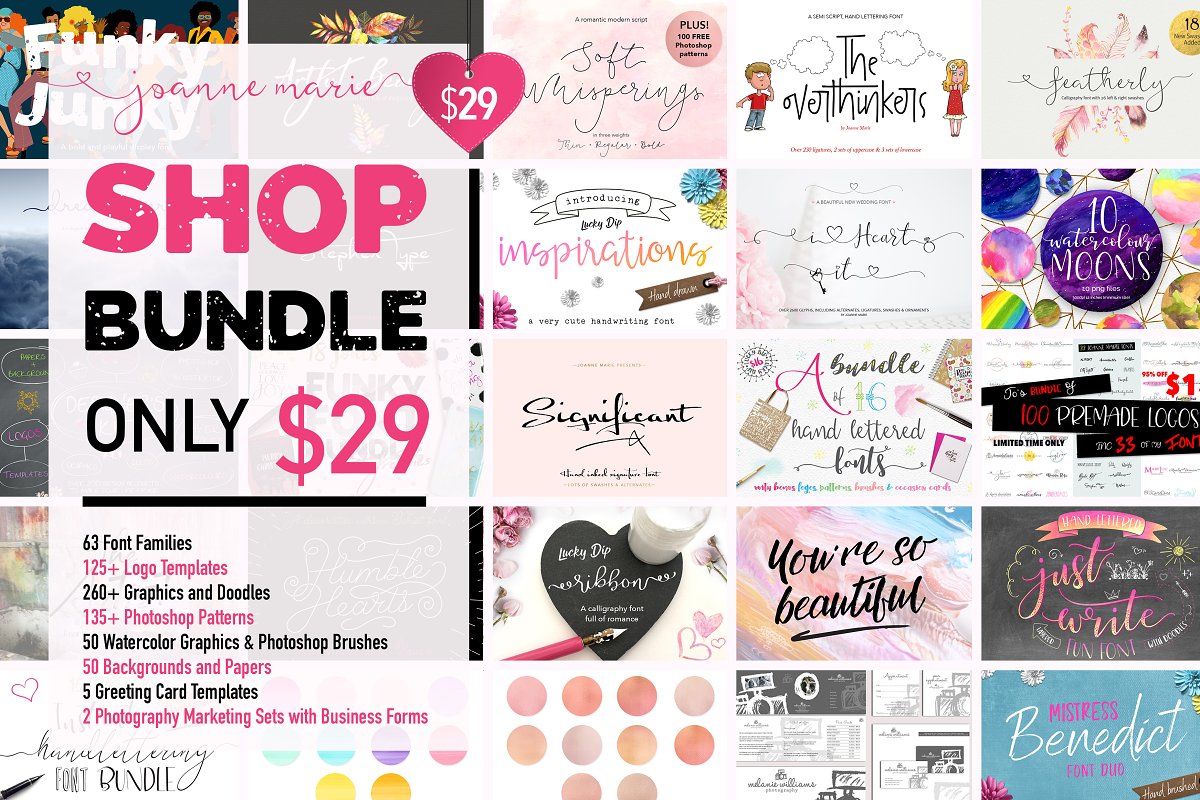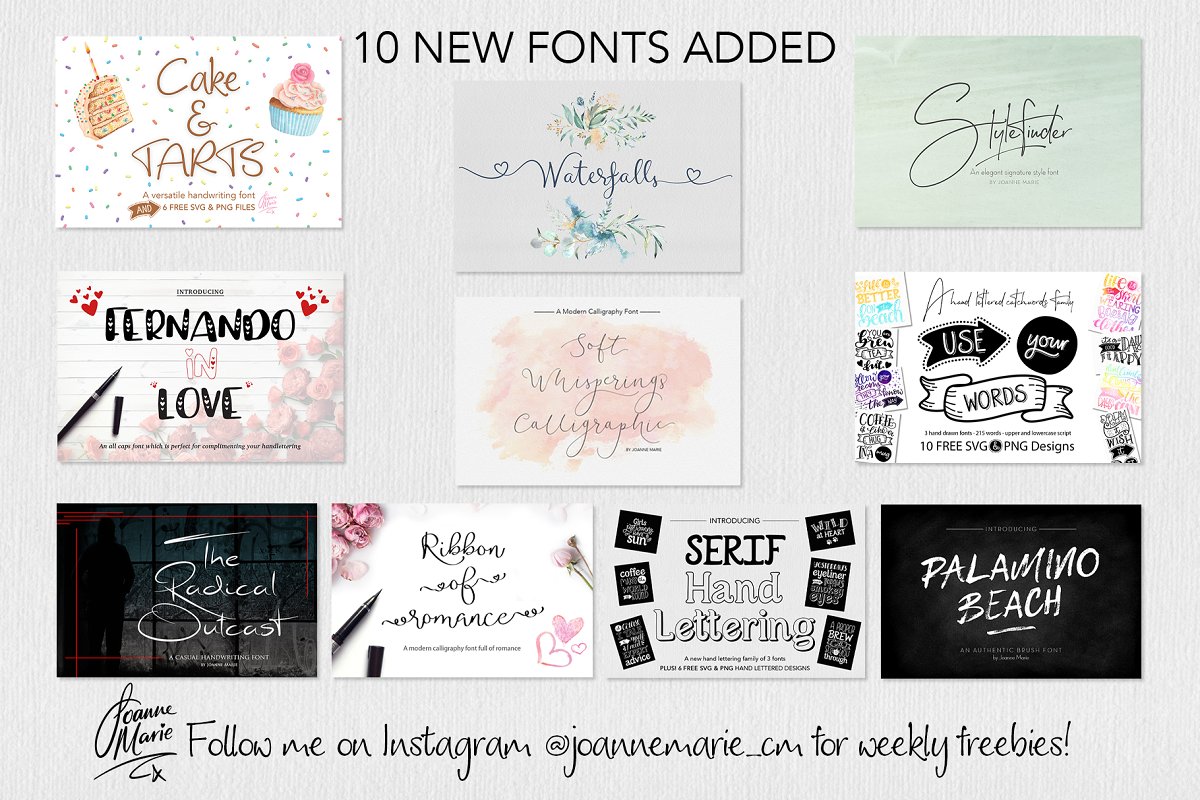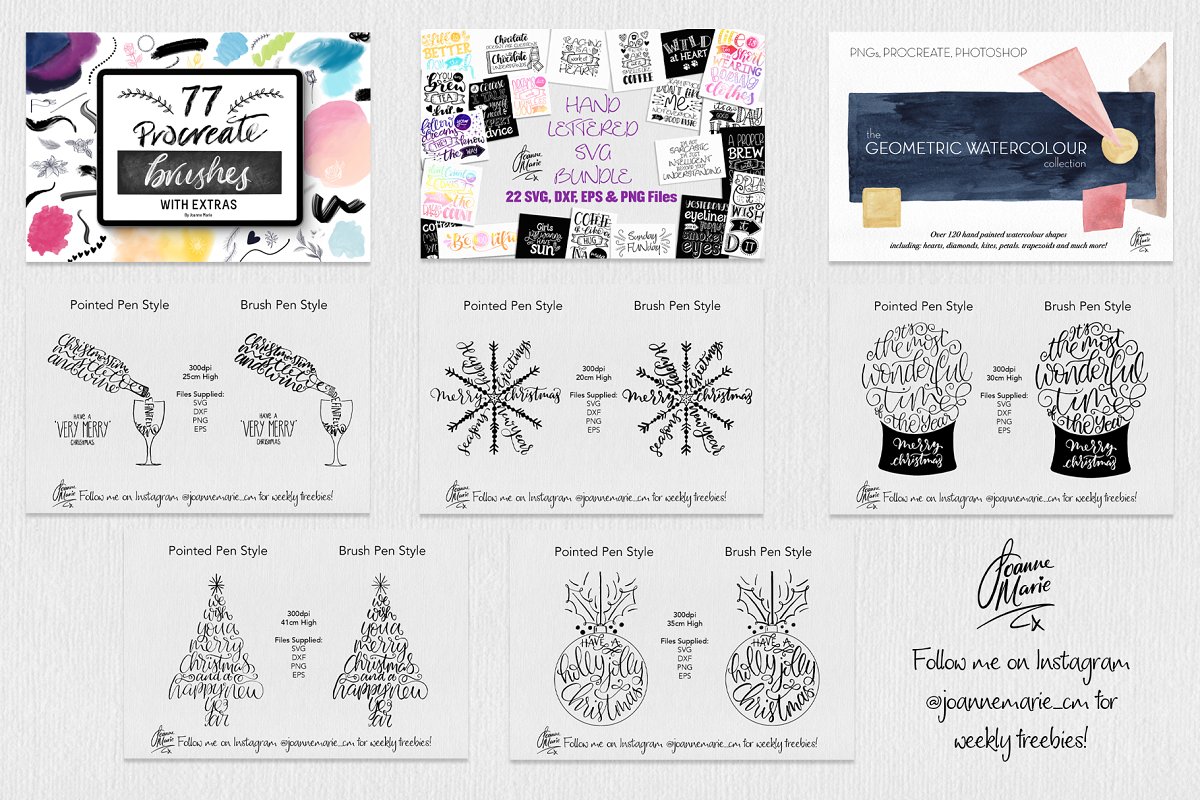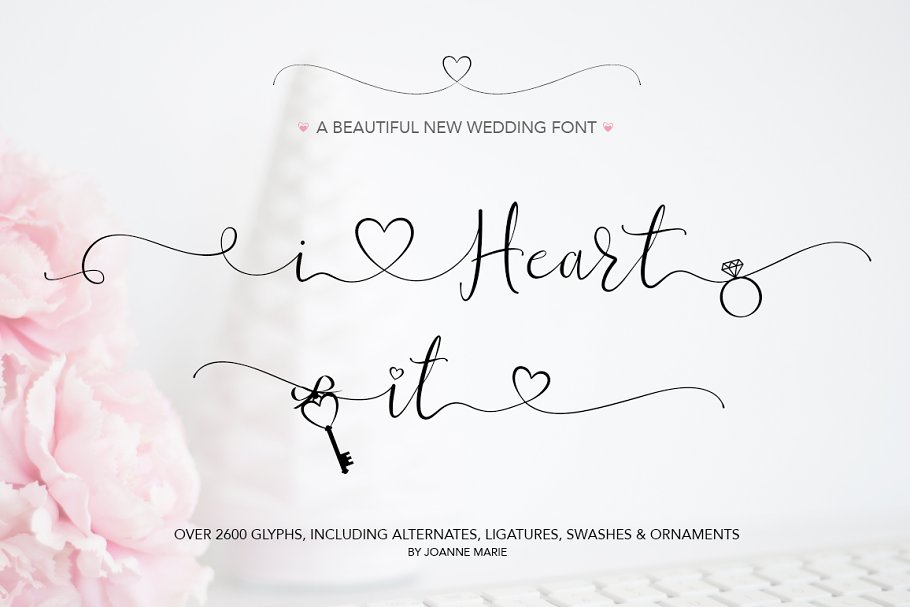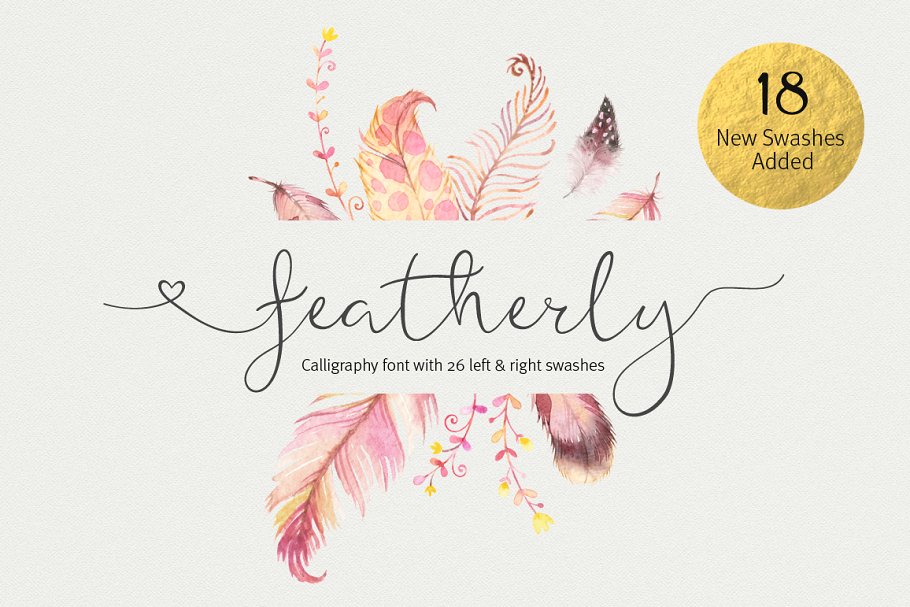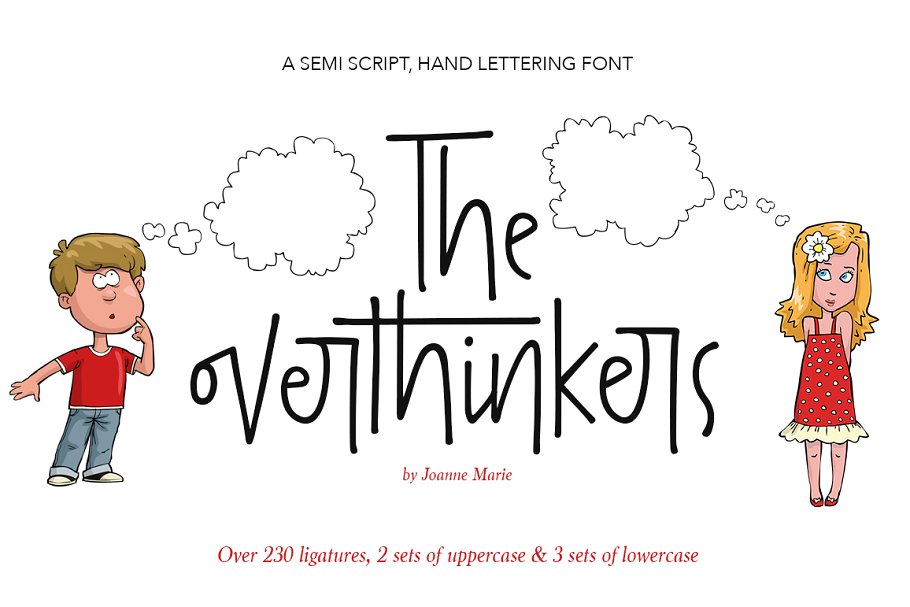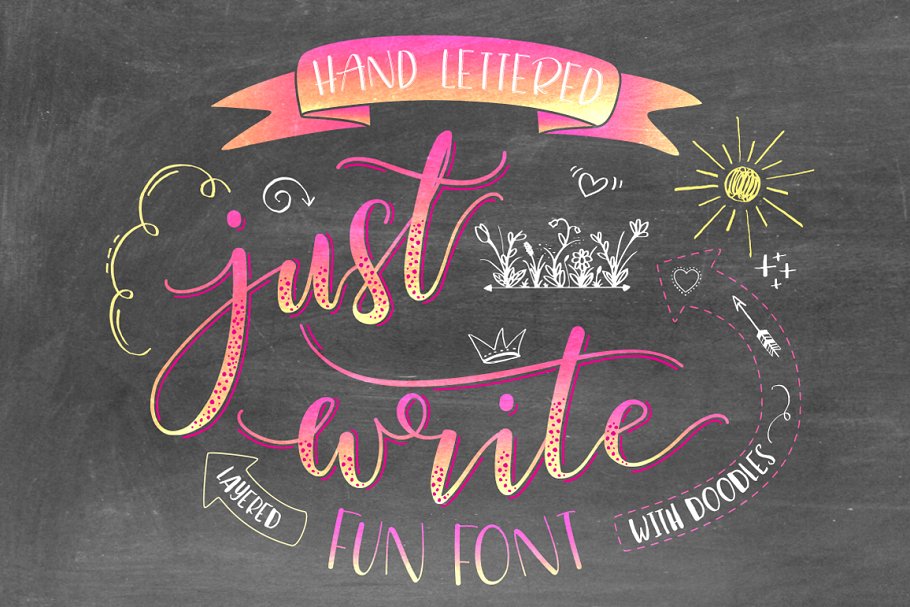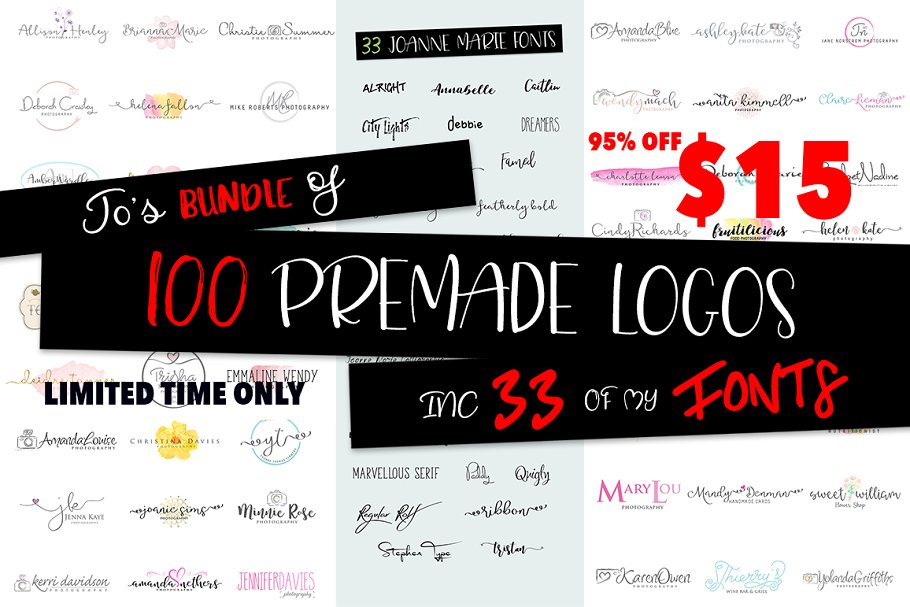
About the Joanne Marie Shop bundle Font
For weekly freebies, follow me on Instagram @joannemarie_cmHUGE UPDATE!11 new fonts22 hand lettered svg designs77 Procreate Brushes (including 20 backgrounds, and practise sheets)Abstract watercolour (a collection of over 120 hand painted shapes)BONUS: 5 hand lettered Christmas designs AND a new reduced price of $19 for the rest of 2020!Here’s what you get for your $29 (plus the above update:)63 Font Families – includes a varied range of typographic styles such as wedding fonts, modern calligraphy, signature, brush lettering, layered, hand lettering, swash, hispter, travel and more
Many have alternative glyphs, ligatures and swashes and contain multi-lingual support, There are also a few layered fonts for you too!125+ Logo Templates – These lovely logo templates can be edited to promote different types of businesses such as jewellery, handmade products, florists, IT, blogging, etc – with so many different styles of designs you’ll be sure to find your perfect logo within this bundle